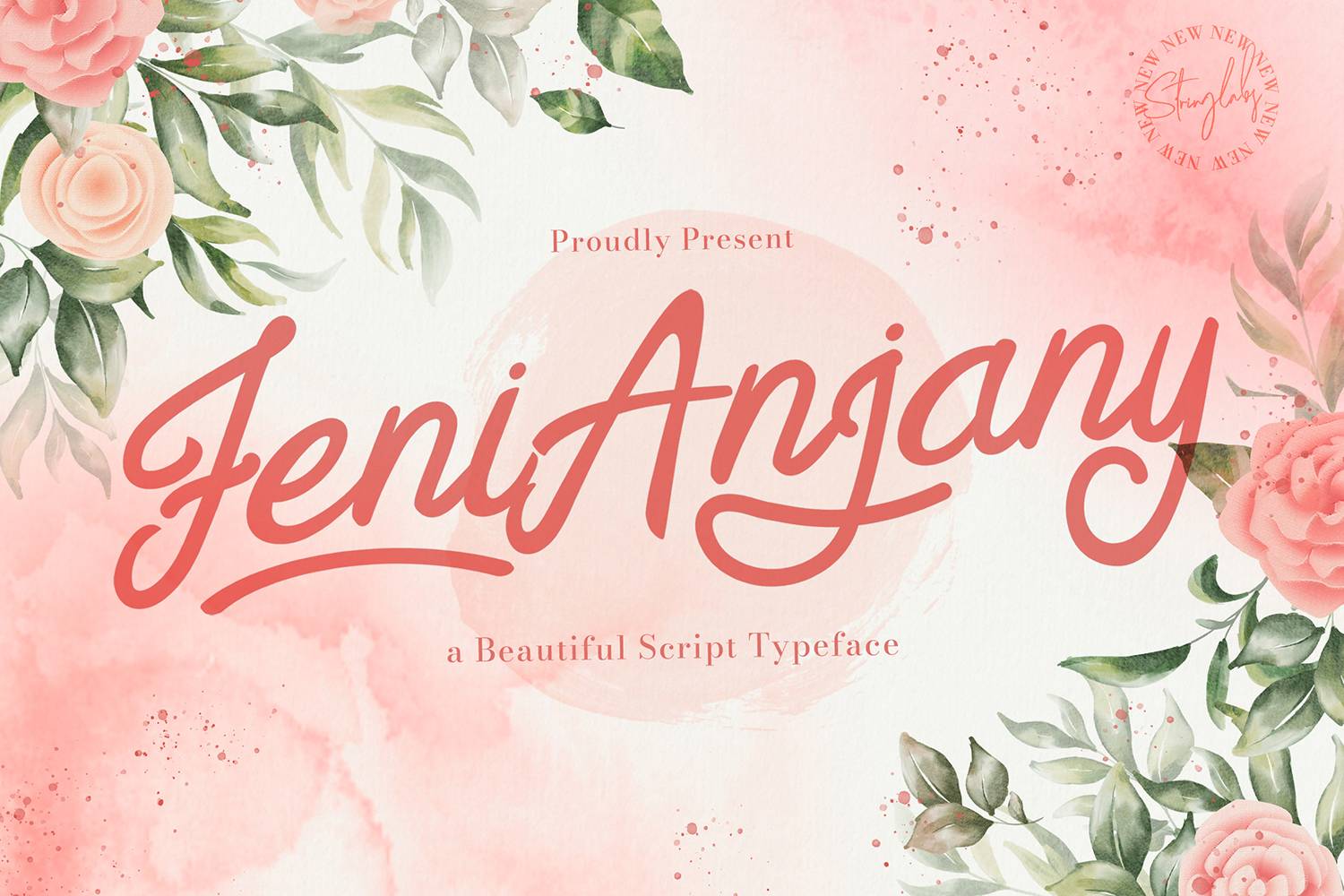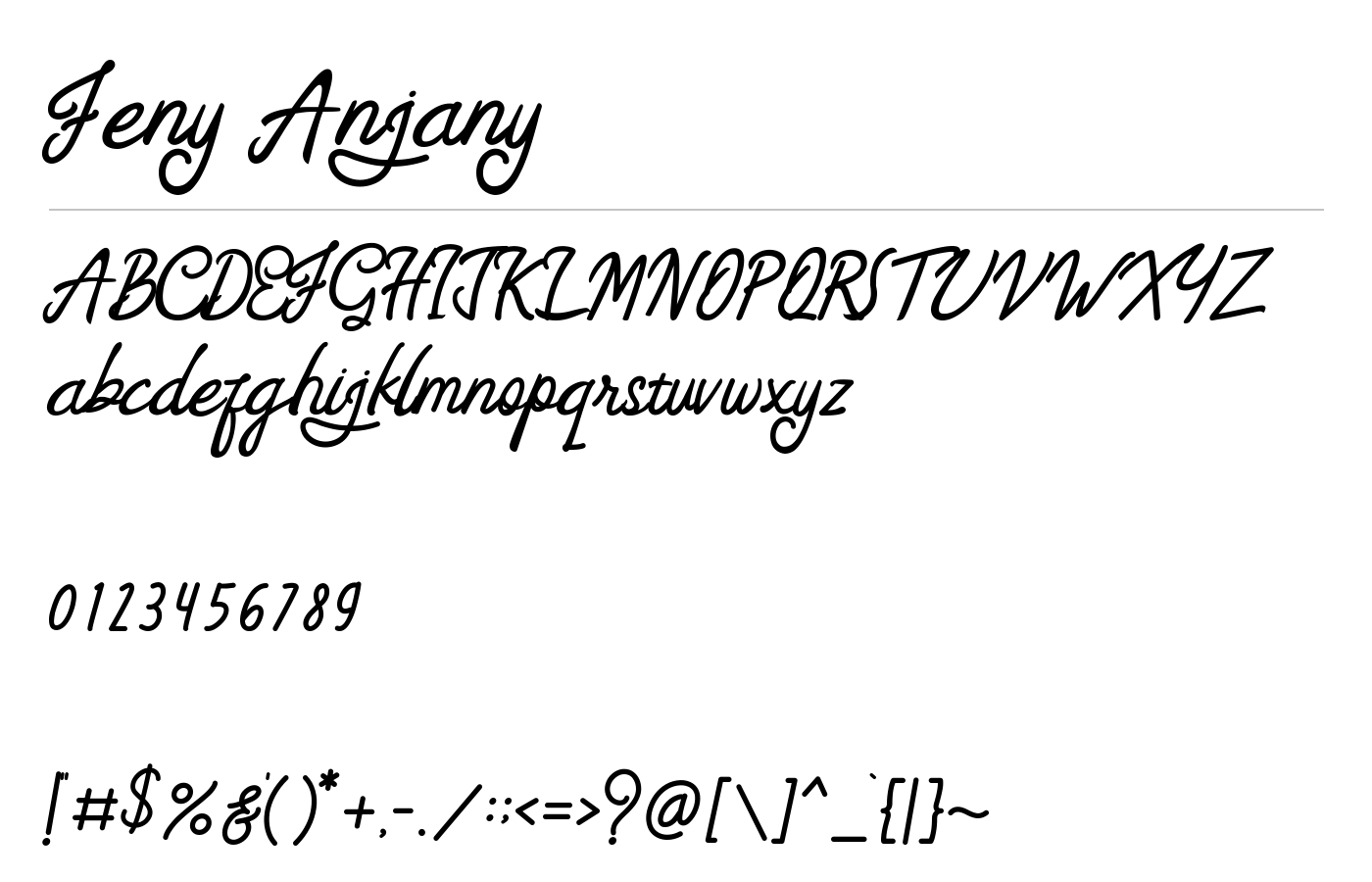
Feny Anjany is a charming script font with a smooth, handwritten feel that combines elegance with a playful touch. Its flowing strokes and moderate contrast create a warm, inviting personality perfect for creative projects, invitations, and logos that seek a personal, stylish flair. This font works beautifully in settings that want to evoke friendliness and sophistication without being overly formal.
Feny Anjany Font
About Feny Anjany Font